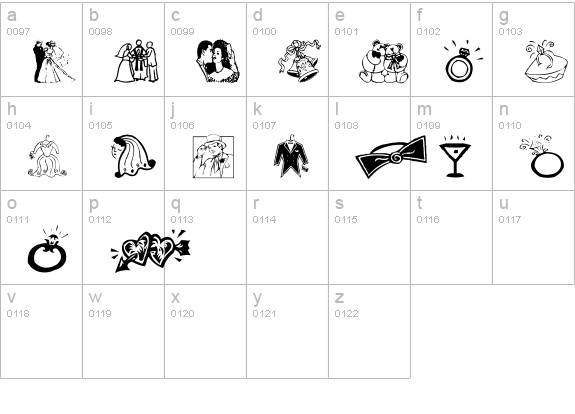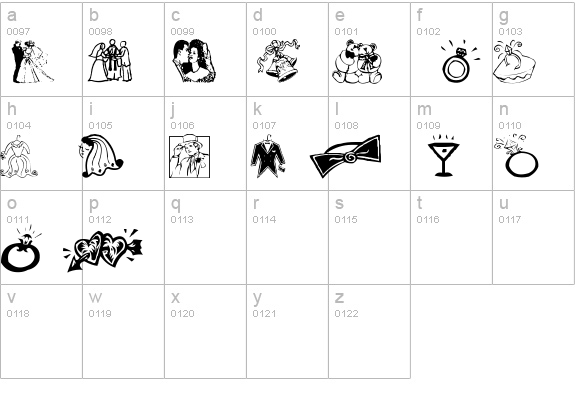
AEZ wedding dings Font Details
Introducing AEZ Wedding Dings font - a whimsical and elegant typeface designed to add a touch of romance and charm to your wedding-related projects. This stunning font features a collection of intricate wedding-themed icons and ornaments that are perfect for creating invitations, save-the-dates, thank you cards, and more. The delicate swirls and flourishes of AEZ Wedding Dings font will surely impress your guests and make your designs stand out. What's even better is that AEZ Wedding Dings font is available for free download at FontsMarket.com. Now you can effortlessly elevate your wedding stationery with this beautiful font without any cost. Don't miss out on this opportunity to add a touch of sophistication and elegance to your special day with AEZ Wedding Dings font. Download it now and start creating stunning designs that will leave a lasting impression!